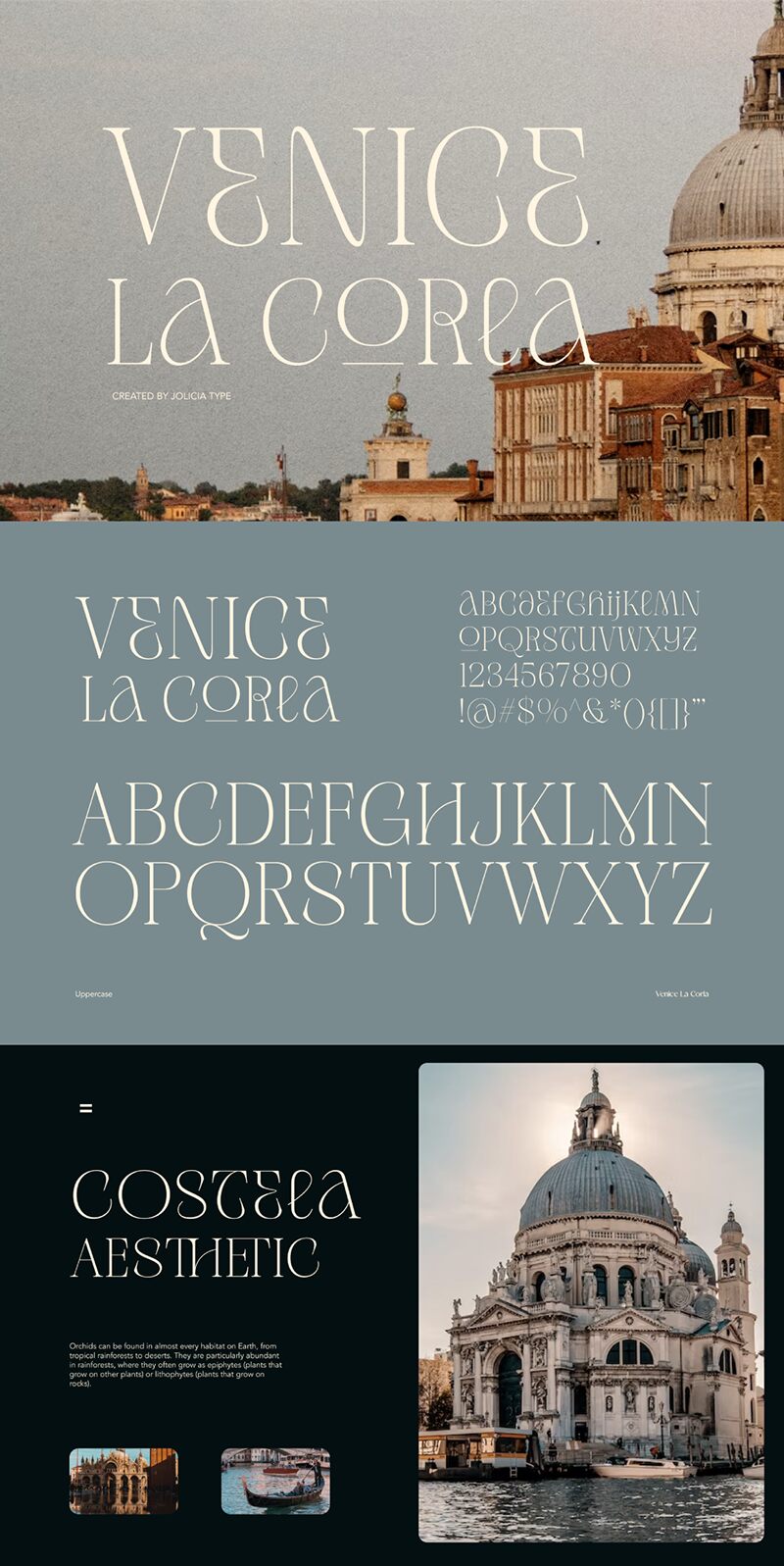
VeniceLaCorla
Venice La Corla font, designed by Jolicia Type Foundry, is a breathtaking serif font that embodies timeless elegance and sophistication. This typeface exudes a sense of refinement and grace that is perfect for projects where a touch of classic charm is required. Each character in Venice La Corla is meticulously crafted to provide a harmonious balance between its serifs and elegant lines, resulting in a truly remarkable font.
This free serif font was designed to shine on official documentation, logotypes, posters/ flyers, branding presentations (stationery: envelopes, cards), books titles or covers and magazine’s covers or sections. Website creation experience can benefit from using it on hero images or navigation bars’ menu items for exceptional performance also in extended usage.